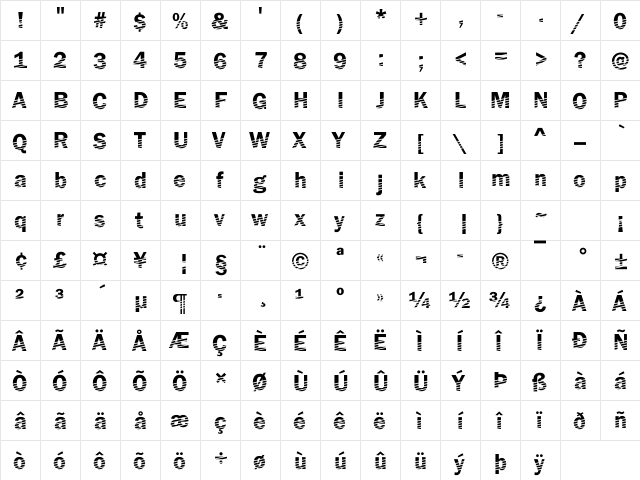
Franklin21 Becker Regular
Design Context for Franklin21 Becker Typeface
Franklin21 Becker is a composed and adaptable typeface that performs quietly and consistently across a wide range of design contexts.